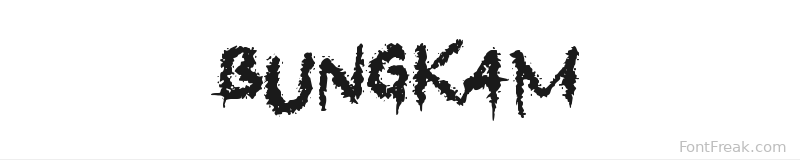
Bungkam
Bungkam, designed by Wahyu Eka Prasetya in 2021, is a striking display font that captivates with its unique character. This font embodies a bold and artistic style, characterized by irregular stroke weights and a textured appearance that gives it a hand-painted quality. The letters appear dynamic and expressive, featuring dramatic contrasts that enhance their visual impact. The spacing is intentionally varied, contributing to the font's overall energetic feel, making it perfect for eye-catching designs.
Bungkam is an excellent choice for various creative applications. Its distinctive style makes it ideal for movie posters, where it can evoke a sense of intrigue and excitement. Additionally, it shines in graphic design projects such as album covers, where its artistic flair can enhance the visual identity of the music. Wedding invitations can also benefit from Bungkam’s bold aesthetic, adding a unique touch that reflects the couple's personality. Restaurant menus featuring this font can draw attention and create a memorable dining experience, encouraging patrons to explore the offerings.
The target audience for Bungkam includes graphic designers, small business owners, and content creators who seek to make a statement with their work. Whether you are crafting an advertisement, designing merchandise, or creating social media graphics, this font provides the versatility needed to stand out.
What sets Bungkam apart is its ability to convey emotion and character through typography. Its distinctive look not only captures attention but also invites viewers to engage with the content in a meaningful way. For those in search of a unique typeface, Bungkam font free download offers an opportunity to incorporate this exceptional design into various projects, ensuring that your work leaves a lasting impression.